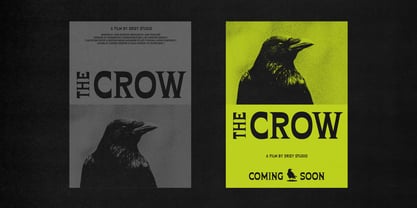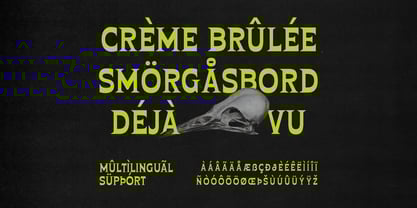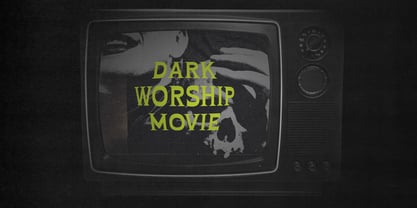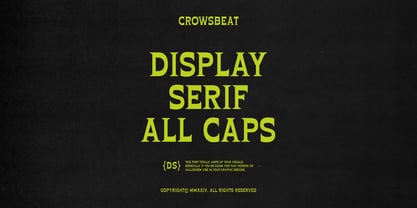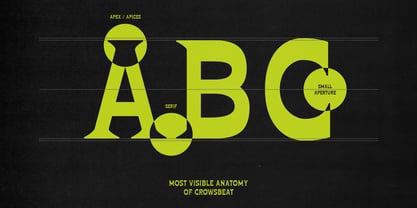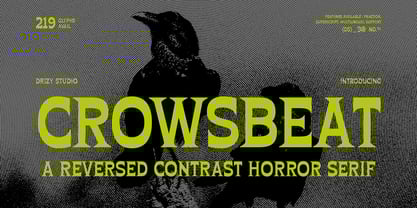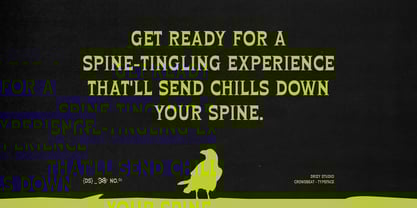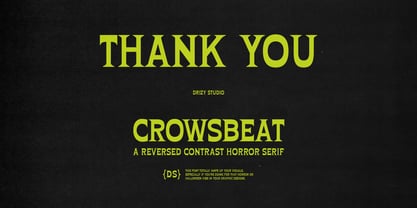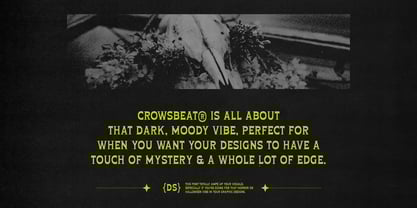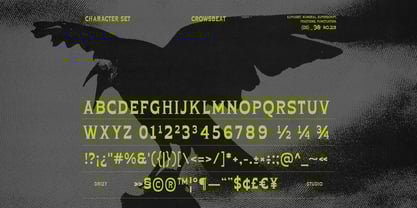
Crowsbeat
Crowsbeat – Reversed Contrast Horror Font
Crowsbeat is a spine-chilling typeface that embodies the eerie essence of Halloween. With its unique reversed contrast design, this font turns traditional typography on its head, creating a strikingly unsettling effect. Perfect for horror-themed projects, Crowsbeat brings an element of dread and suspense to your designs. This font adds a dark, atmospheric touch that will send shivers down your audience’s spine. Embrace the shadows and let Crowsbeat lead your Halloween creativity into the nightmarish unknown.
Crowsbeat Script features:
• Character Set (All Caps)
• Punctuation & Numbers
• Multilingual